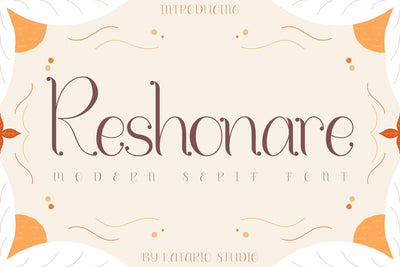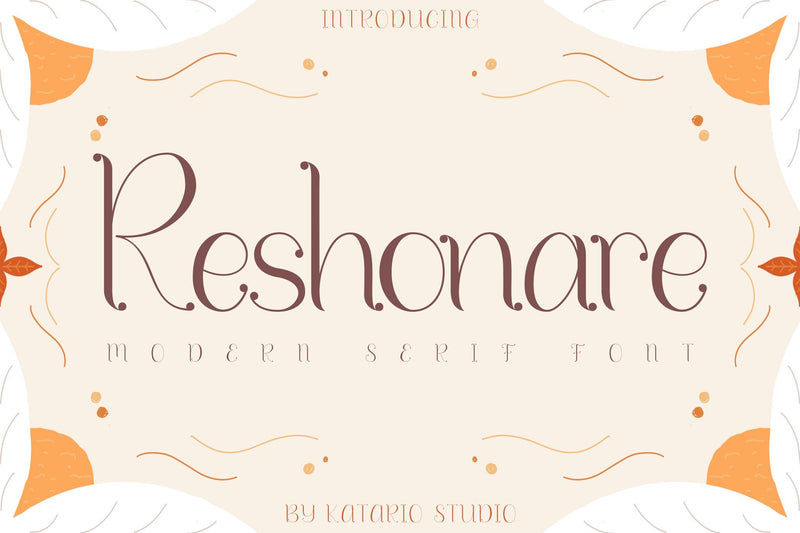
Reshonare | Modern Serif Font
Introducing, Reshonare - A modern serif font with feminine look. This type of font perfectly made to be applied especially in presentation, product branding and the other various formal forms such as invitations, labels, logos, magazines, books, greeting / wedding cards, Christmas theme event, fashion, make up, stationery, novels, labels or any type of advertising purpose.